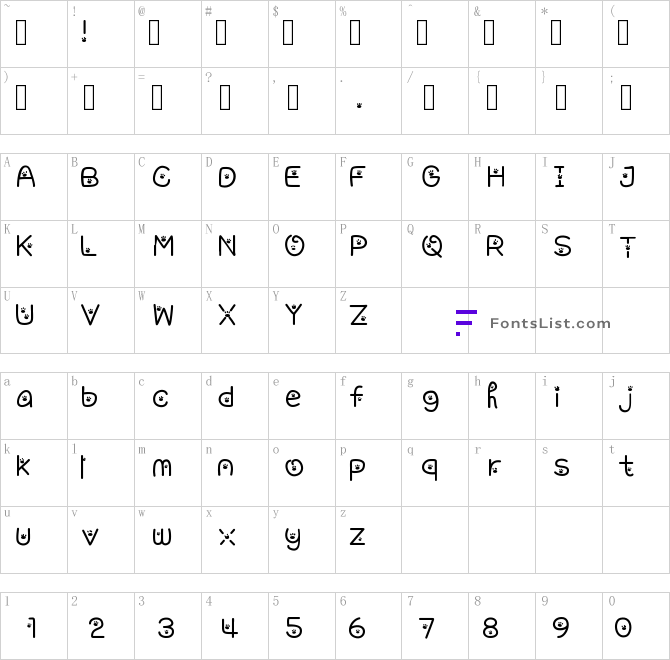
- Font Name:awpaws
awpaws.ttf is a very beautiful artistic font, awpaws.ttf is widely used in the design and printing of various books and pictures,awpaws.ttf has a strong visual impact,awpaws.ttf is a commonly used font in newspapers, magazines and books, and is used in posters, e-commerce Poster design, store design, logo design, font design and other fields.awpaws.